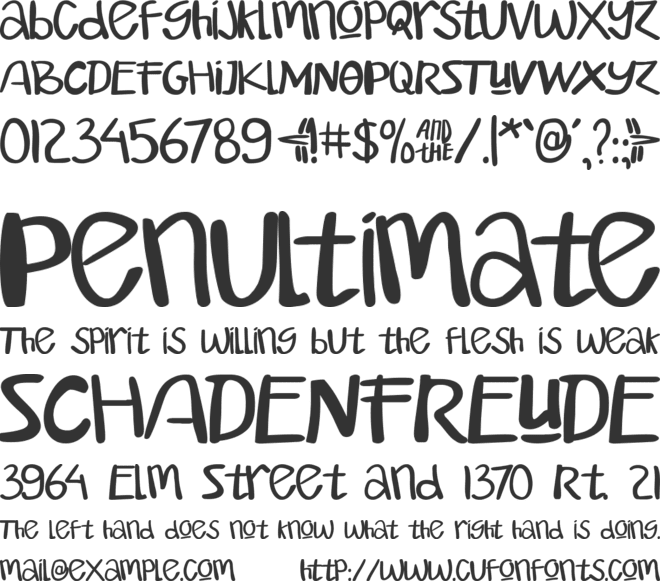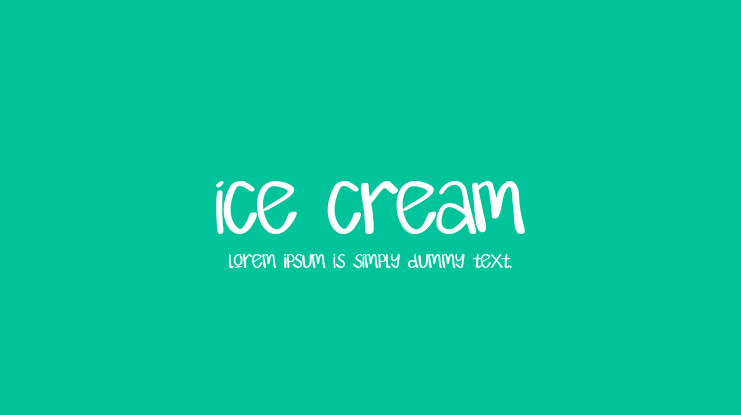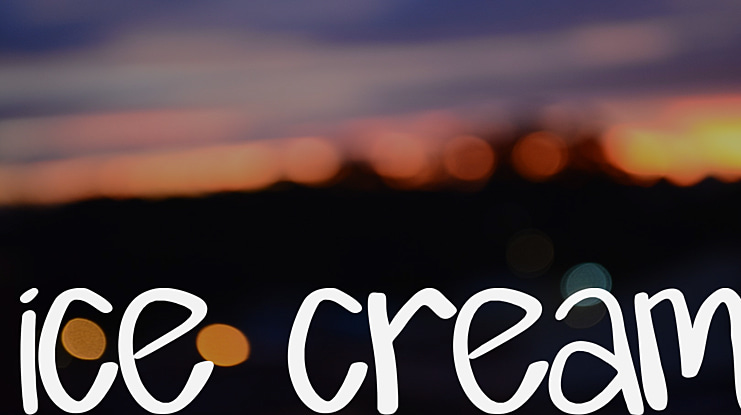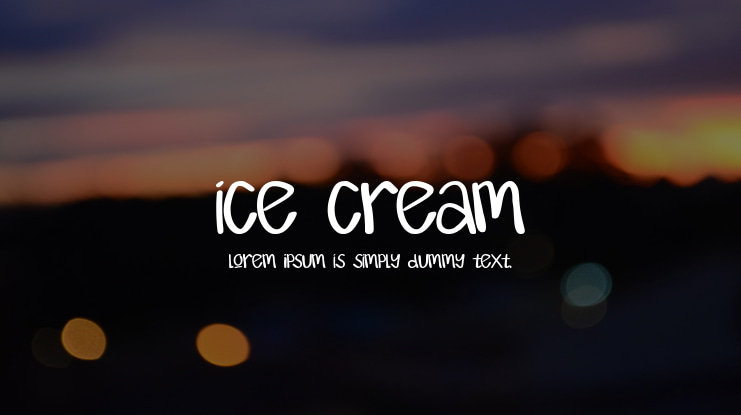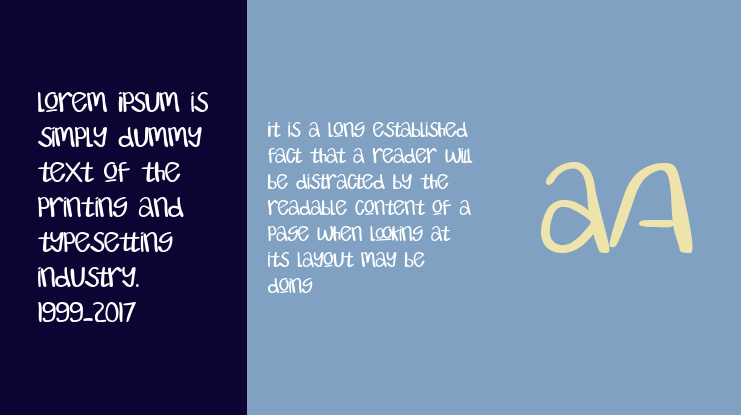
ice cream Font
Ice Cream is a truly iconic script that resembles a kids handwriting. Fall in love with its playful and innocent style. Hi, please contact me before any commercial use. My fonts for free use allowed only in personal project , non-profit and charity use. If you make money from using my fonts, Please purchase a commercial license.